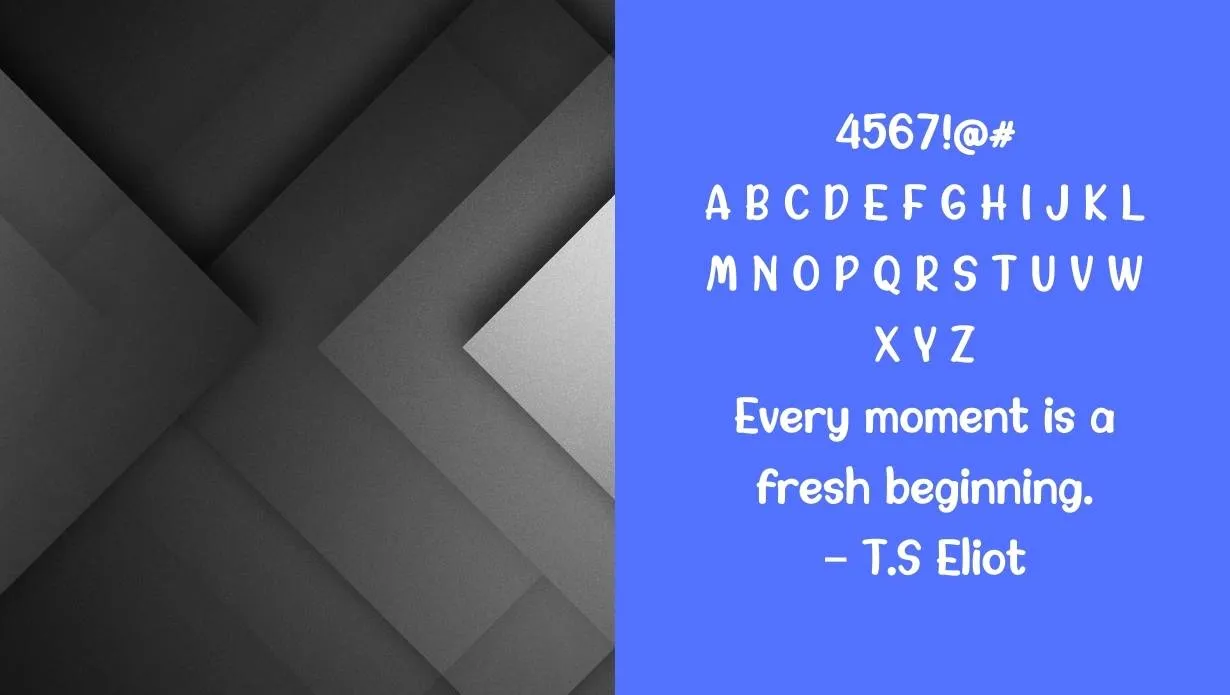
Here, we are going to introduce a new stylish typeface that is known by the name Challenge the World Font. This cozy typeface belongs to the fancy font family. It was designed by Qara Anass. This Fancy typeface has come up with four unique styles including Regular, Bold, Italic, and Bold Italic.
Each and every style has contained 1000 characters as well as 1000 units per em. It supports almost all international languages along with some extraordinary features. Challenge the world Typeface has neat and clean textures. Its similar chewy font is perfect for a wide variety of designs.
| Name | Challenge the world Font |
| Designer | Qara Anass |